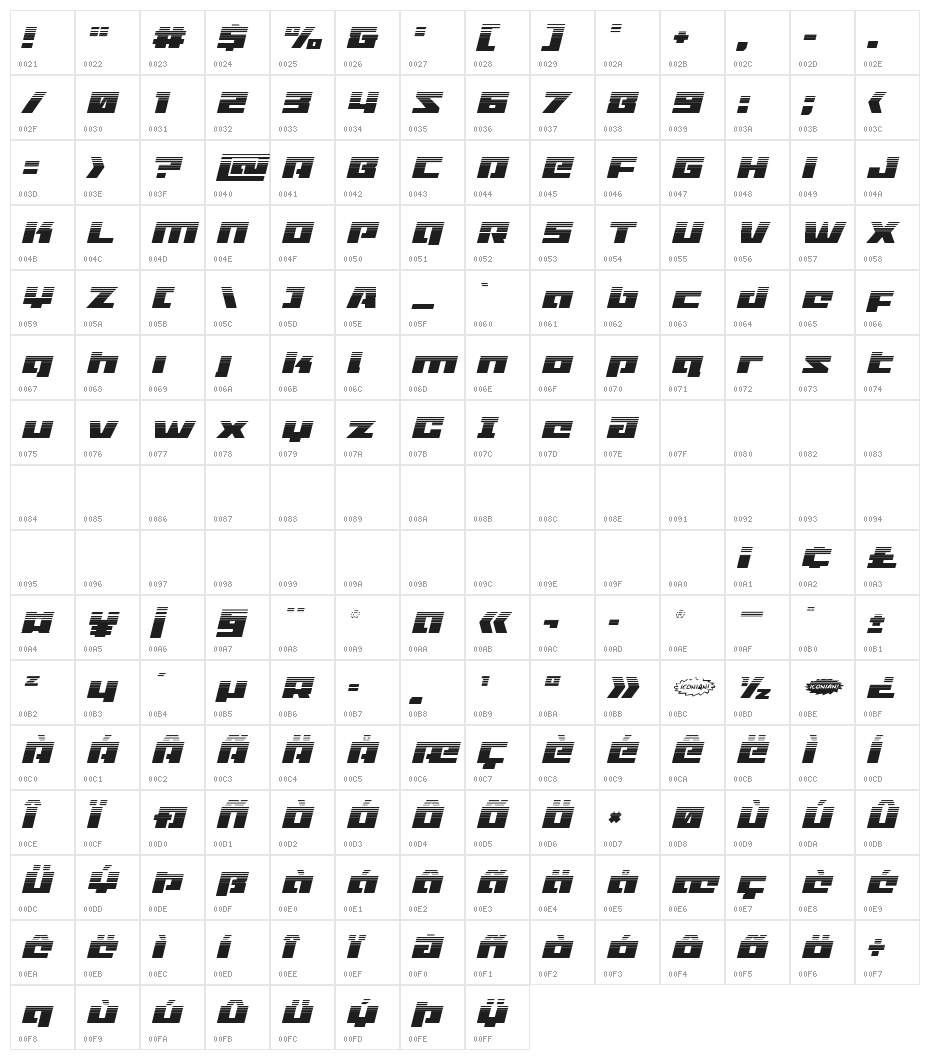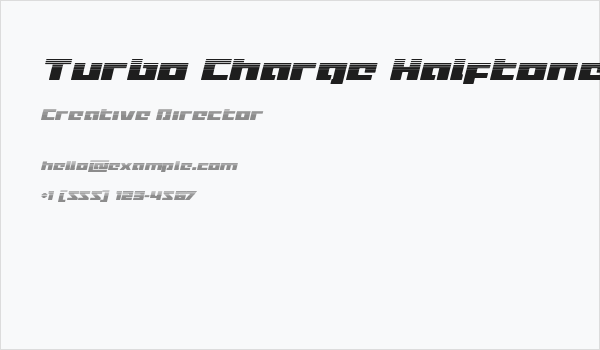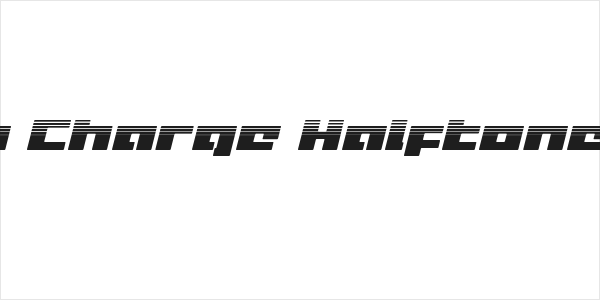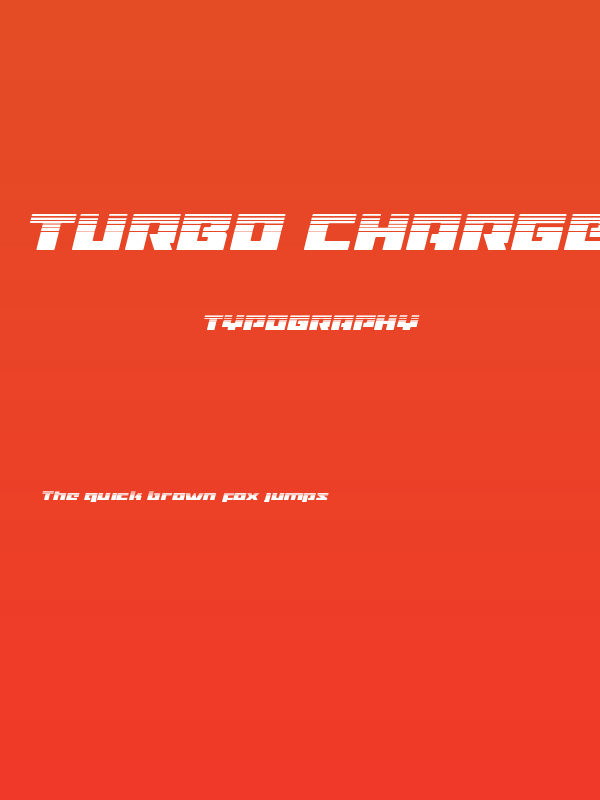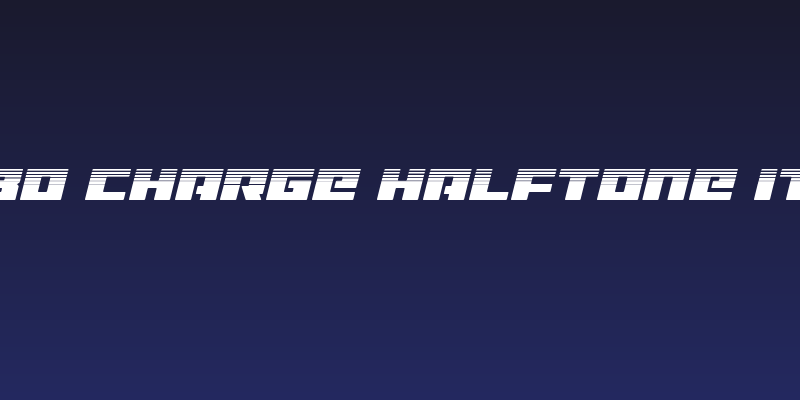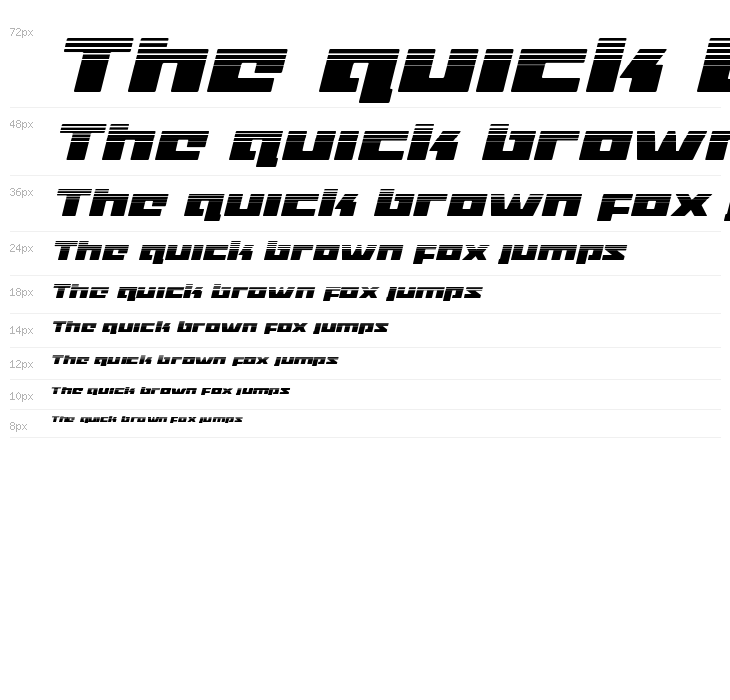
Turbo Charge Halftone Italic Font
Turbo Charge Halftone Italic Description
This font features a bold, dynamic design with a halftone effect that gives it a futuristic and energetic appearance. The characters are italicized, adding a sense of motion and speed. The uppercase and lowercase letters maintain a consistent style, with sharp angles and a blocky structure. The numbers and special characters follow the same design principles, ensuring uniformity across all glyphs. The halftone lines create a unique texture, making it stand out in digital and print media. This font is ideal for projects that require a modern and edgy look.
| Overall Style | Futuristic, Dynamic |
| Proposed Projects | Ideal for sports branding, video game titles, tech-related advertisements, and futuristic-themed posters. |